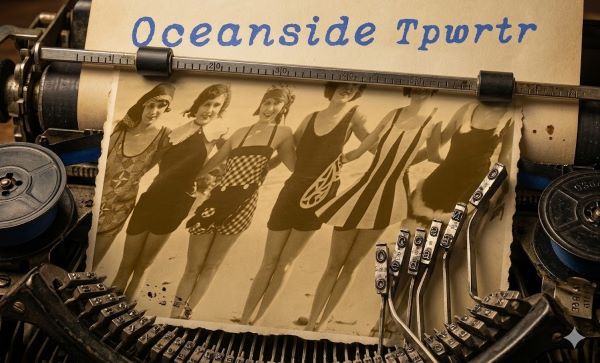
Oceanside Typewriter Font
Oceanside Typewriter font by Lukas Krakora is a free typewriter font with a breezy, sun-faded coastal sensibility — its slightly irregular, ink-textured letterforms capturing the relaxed authenticity of correspondence typed on a machine by the sea. This typewriter font sits perfectly at the intersection of vintage and casual, making it ideal for travel editorial, artisan branding, coastal lifestyle content, journaling aesthetics, and stationery design. Free for personal use; commercial via typewriterfonts.net.